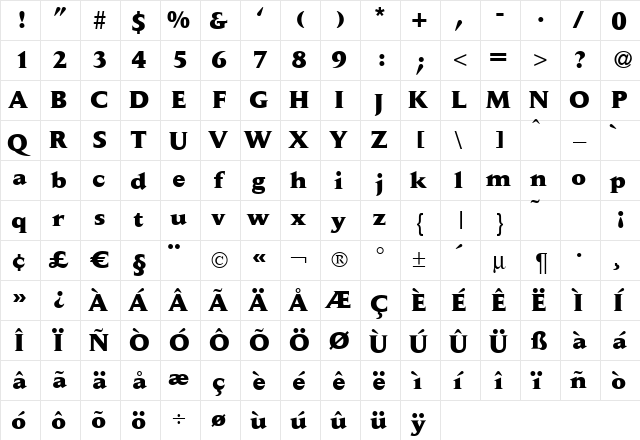
D650-Roman-Xbold Regular
Design Context for D650-Roman-Xbold Typeface
D650-Roman-Xbold is a composed and adaptable typeface that performs quietly and consistently across a wide range of design contexts. The heavy weight commands attention and anchors typographic hierarchies.